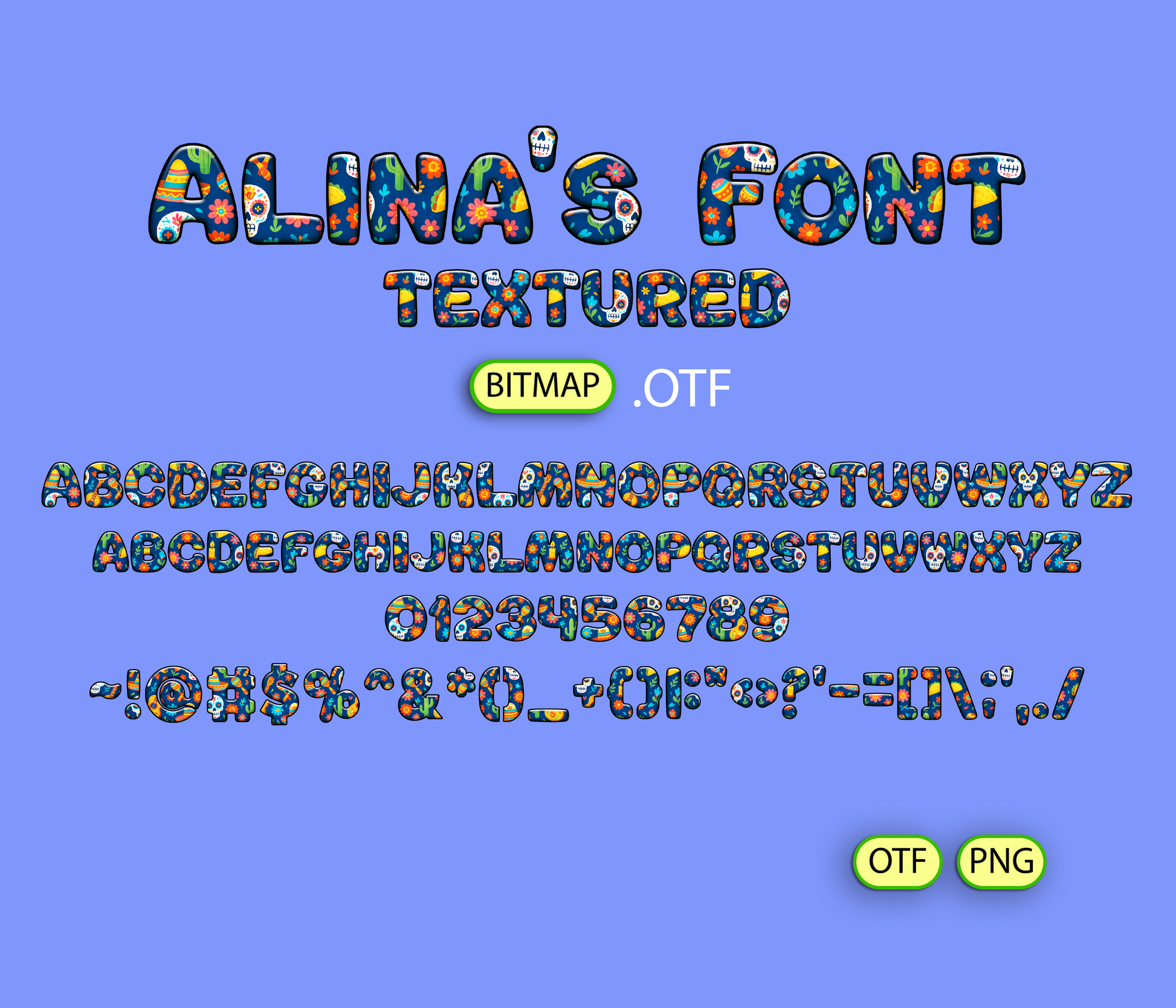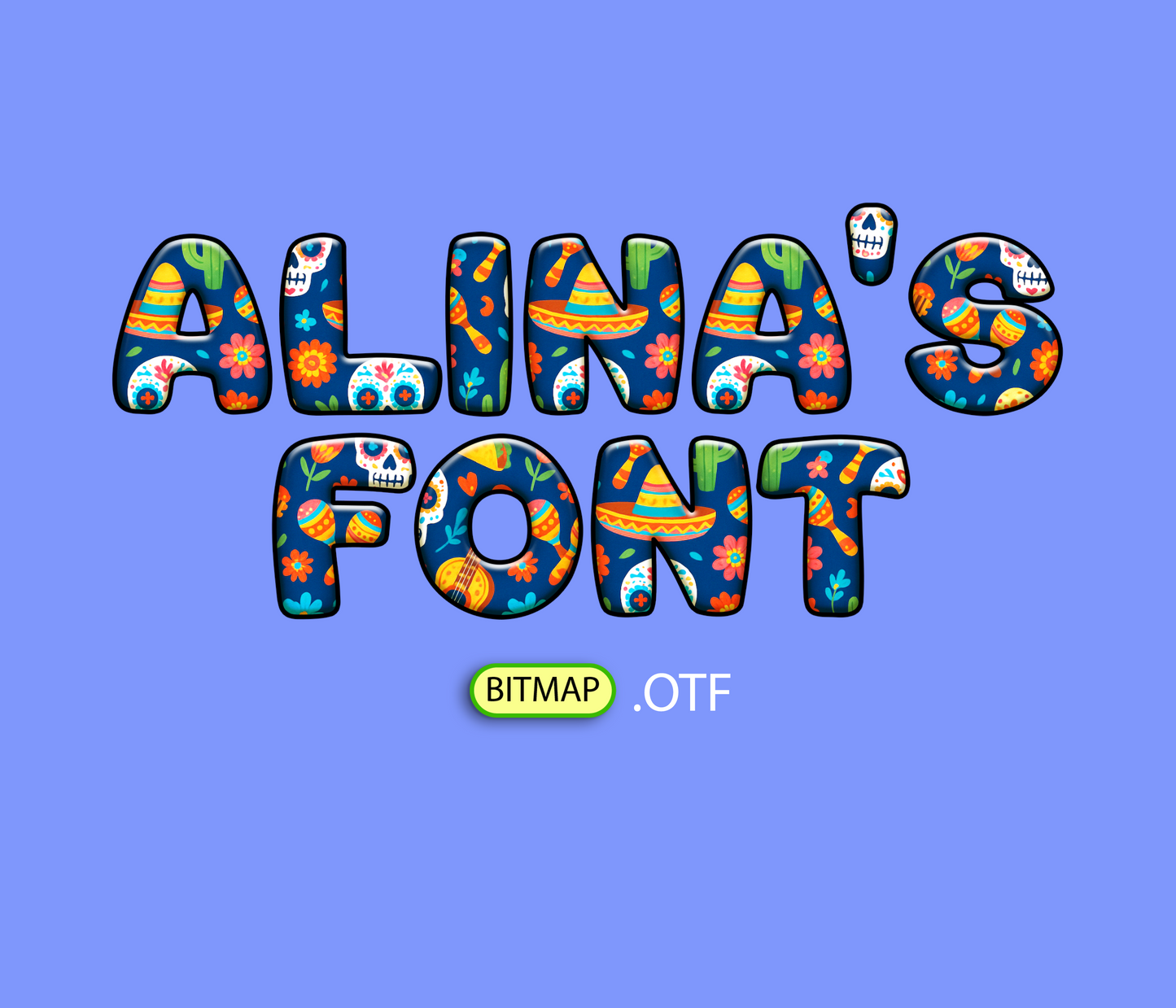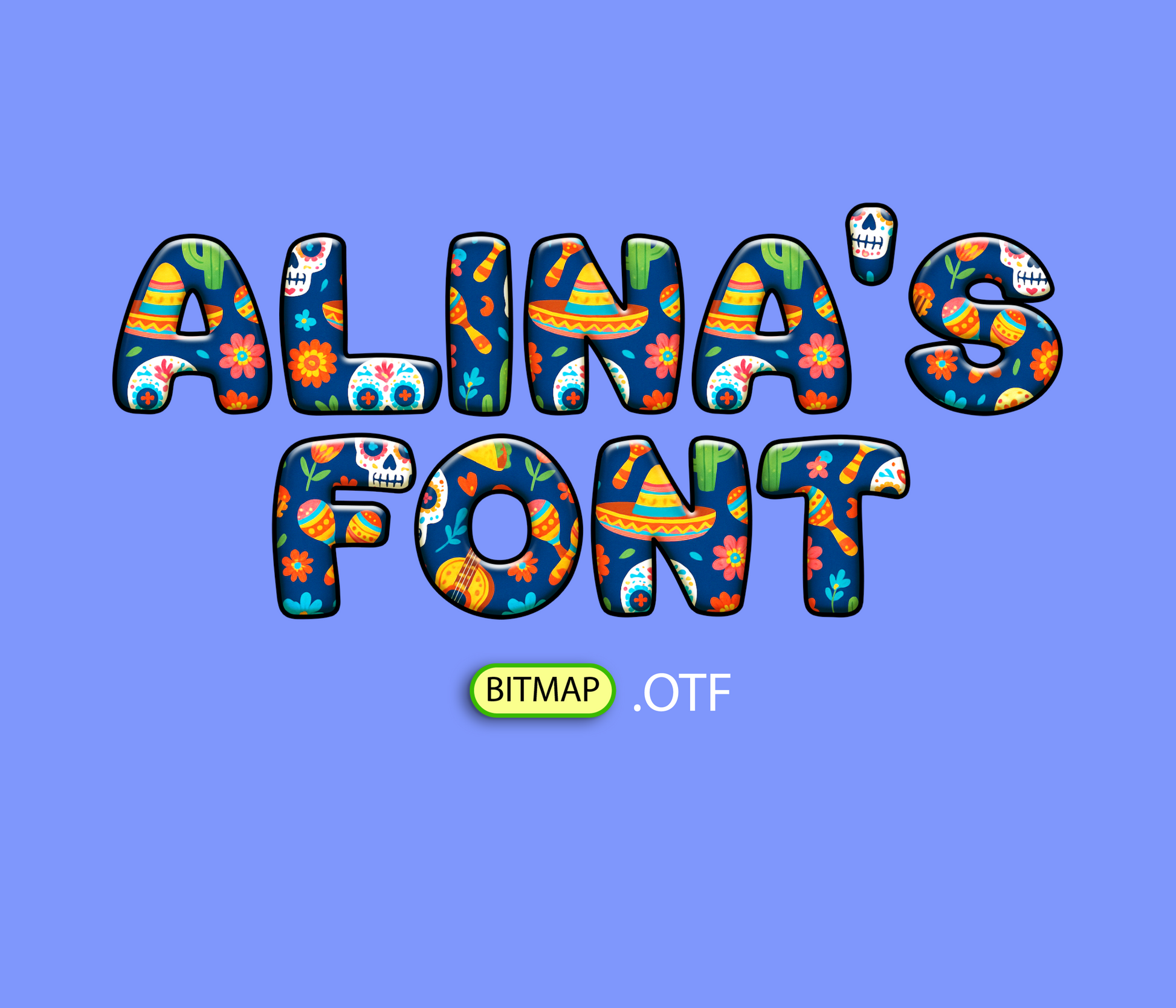
Corazón Mexicano Typeface Textured
Journey into the heart of Mexico's passionate culture with our Corazón Mexicano Typeface, capturing the soul of desert landscapes and colonial plazas. Designed for regional cuisine establishments, folkloric brands, festivity coordinators, and artistic visionaries, this font delivers the warm, expressive atmosphere of guitar serenades and courtyard fountains to your design portfolio. Craft memorable displays, southwestern-inspired goods, or online content with the authentic, spirited character of woven textiles and adobe architecture.
Our Corazón Mexicano Typeface presents intricate, mission-inspired embellishments and expressive characters that capture the passionate yet timeless spirit of Mexican cultural identity. Perfect for:
- Food Service: Develop compelling brand assets, signage, and marketing materials for pozolerias, pulquerías, and traditional Mexican food trucks
- Festival Planning: Outstanding for posada celebrations, mariachi event invitations, and festive materials that honor Mexican jubilation
- Digital Platforms: Elevate websites, email marketing, and social media with bold lettering that communicates heritage and celebration
- Tourism Promotion: Incorporate authentic regional flair into travel publications, cultural expedition guides, and marketing assets for Mexican destinations
- Creative Projects: Introduce Latin American elegance to photo albums, artisan crafts, and decorative projects influenced by Mexican folk art